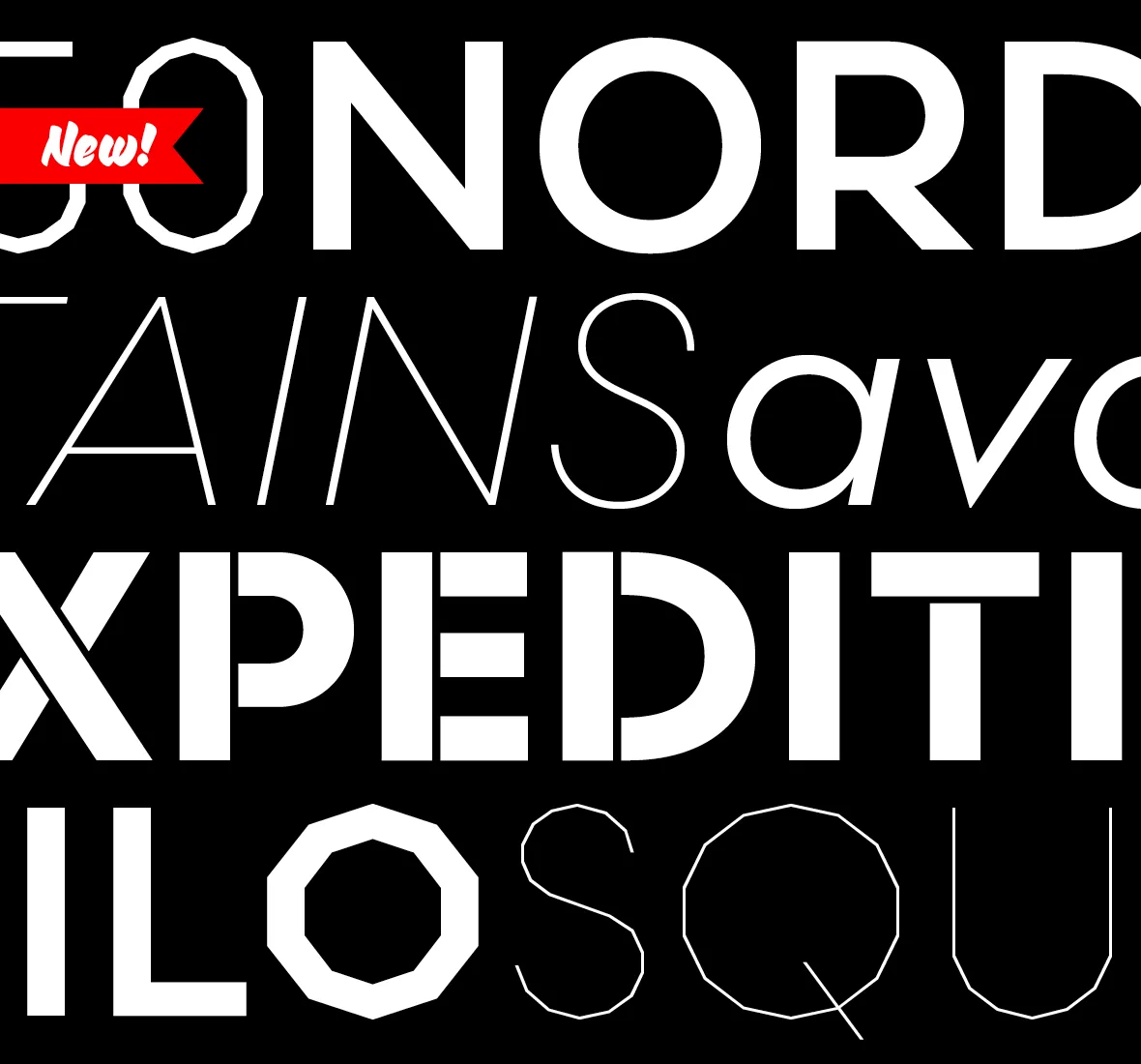
New Release: Scandia & Scandia Line
We’re excited to announce the release of two new typefaces, Scandia and Scandia Line. Although they’re siblings deep down, their differences are more apparent than their similarities. Designed first, Scandia Line is a skeletal sans serif made entirely without curves. Scandia came next, taking Line’s circular proportions but abandoning the all-angle policy for generous curves instead.
Each family has four weights with Scandia offering corresponding italics. As if that weren’t enough, Scandia and Scandia Line also include a stencil variant and several alternates for added versatility. The family’s matching proportions make them a perfect typographic pair but their distinct personalities allow them to function nicely on their own.